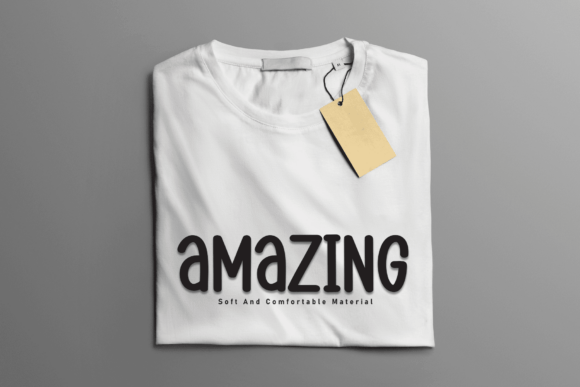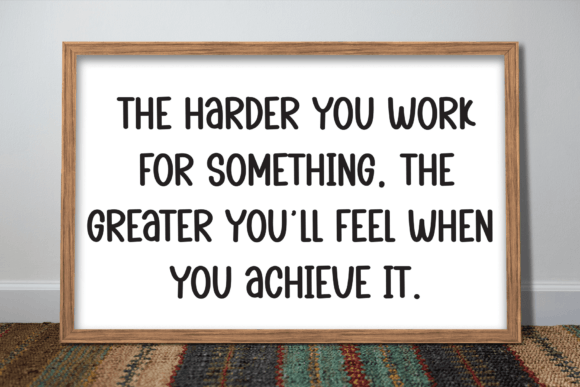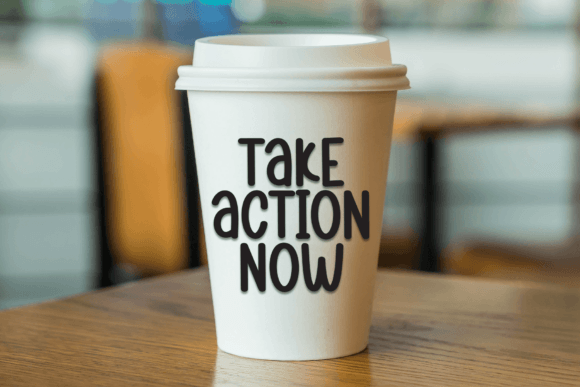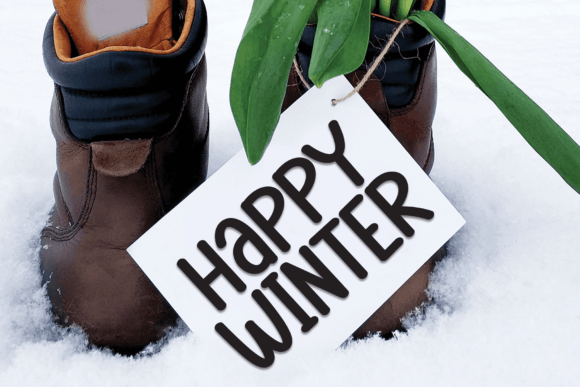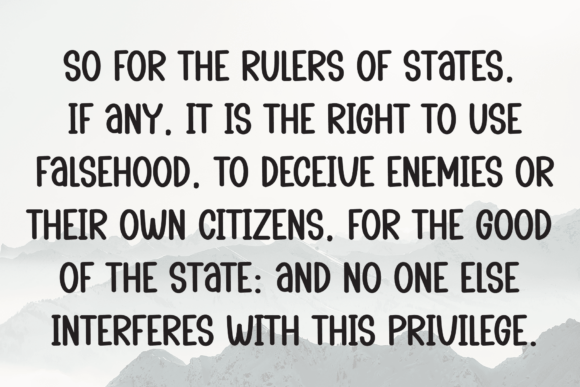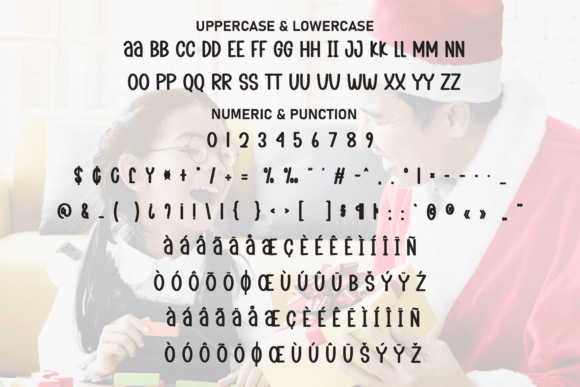
Introduction to Santa Giveaway Font
It’s the most wonderful time of the year, and for designers, that means getting creative with holiday projects. I still remember the excitement I felt when I stumbled upon the perfect font for my holiday cards – a playful, handwritten font that added a personal touch to my design. That’s when I discovered the Santa Giveaway Font, a simple yet charming font that’s perfect for festive projects.
As a designer, finding the right font can make all the difference in bringing your creative project to life. With its cheerful and casual style, the Santa Giveaway Font is a valuable resource for designers looking to add a fun and relaxed touch to their designs. Whether you’re working on a holiday greeting card, a festive poster, or a website design, this font is sure to bring a smile to your viewers’ faces.
And the best part? This high-quality font is available for free download, making it a valuable addition to any designer’s toolkit. With its transparent background and easy-to-read letters, the Santa Giveaway Font is a must-have for any creative project.
Key Features of Santa Giveaway Font
- High-quality, hand-drawn design with a transparent background, making it easy to integrate into any creative project.
- Comes in 6 font styles, including bold, italic, and regular, allowing for versatility in design applications.
- Designed with a fun, playful aesthetic, perfect for festive and holiday-themed creative projects.
Honest Review: Santa Giveaway Font
As a designer, I’m always on the lookout for unique and high-quality fonts to add some magic to my creative projects. The Santa Giveaway Font caught my attention, and I decided to give it a try.
- Unique and playful design that’s perfect for holiday-themed projects
- High-quality font with clear and crisp letters
- Transparent background, allowing for easy customization
- Only includes a limited number of characters, making it less versatile for extensive text
- Not suitable for professional or formal projects, as it’s more geared towards casual and playful designs
Overall, I’d say the Santa Giveaway Font is a great addition to any designer’s toolkit, especially for creative projects that require a touch of whimsy. While it may have some limitations, its unique design and high quality make it a worthwhile download for those looking for a fun and festive font.
Tips for Getting the Most Out of the Santa Giveaway Font
Use the font in conjunction with other design resources to create a cohesive look.
Experiment with different font sizes and colors to create visual interest.
Use the font’s transparent background to create a sense of depth and dimension in your design.
Common Use Cases for the Santa Giveaway Font
Use the font for holiday-themed designs, such as Christmas cards and gift tags.
Use the font for creative projects, such as invitations and posters.
Use the font for business projects, such as branding and marketing materials.